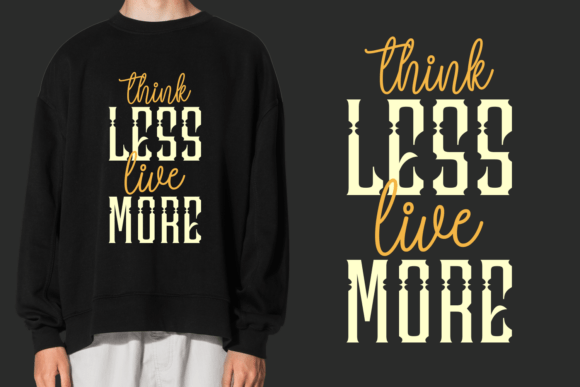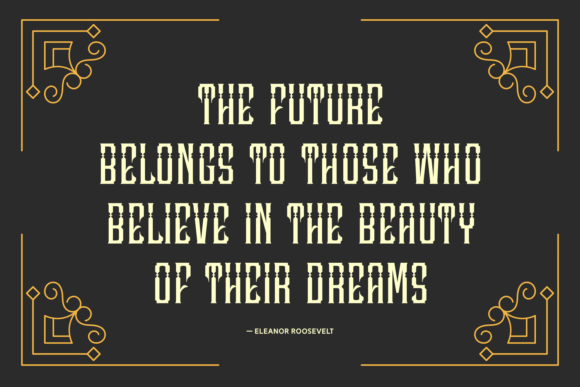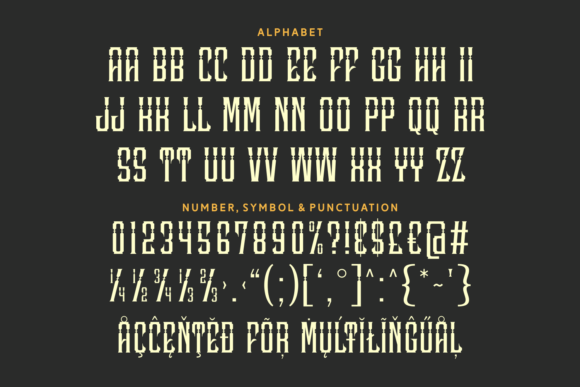
Introduction to Nelmon Font
Nelmon is a bold and highly stylized blackletter display font with a strong vintage Western flair.
Its tall, narrow letterforms are accented with ornamental inlines, giving it a distinct, decorative edge Perfect for saloon-inspired branding, whiskey labels, posters, and signage, Nelmon delivers a punch of old-school charisma with a touch of elegance.